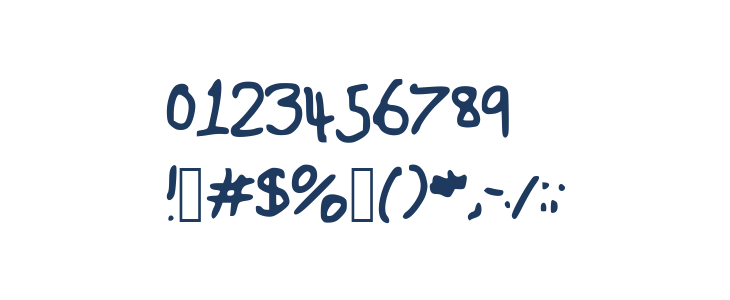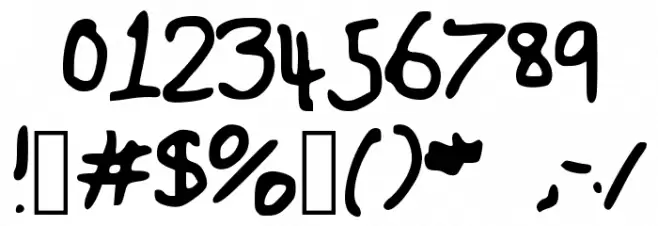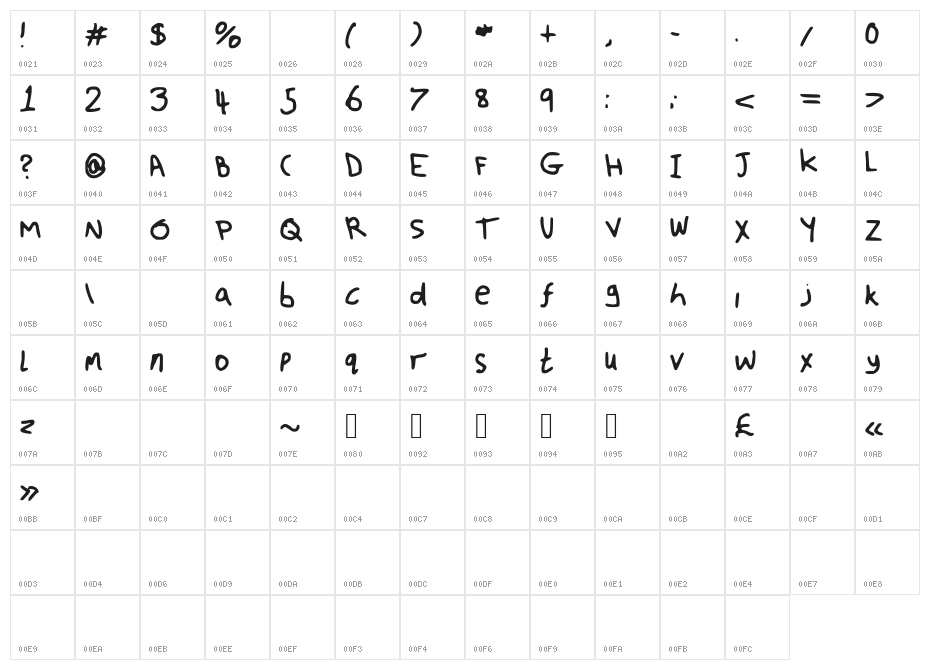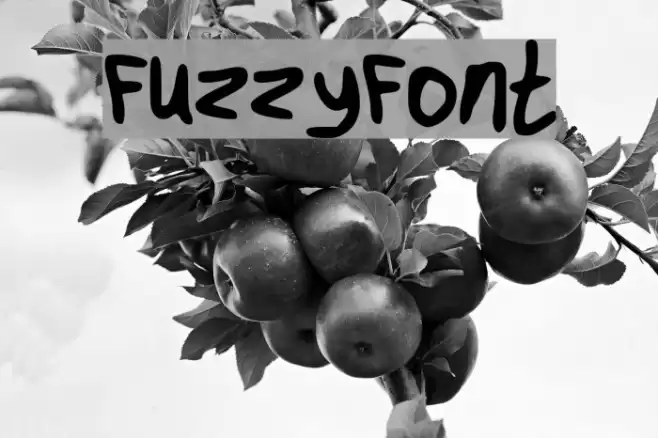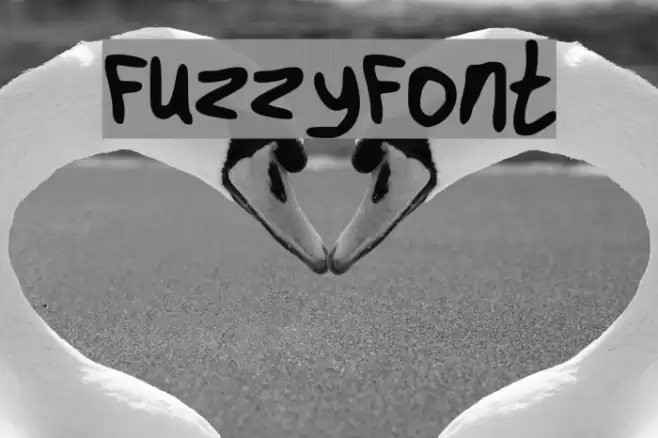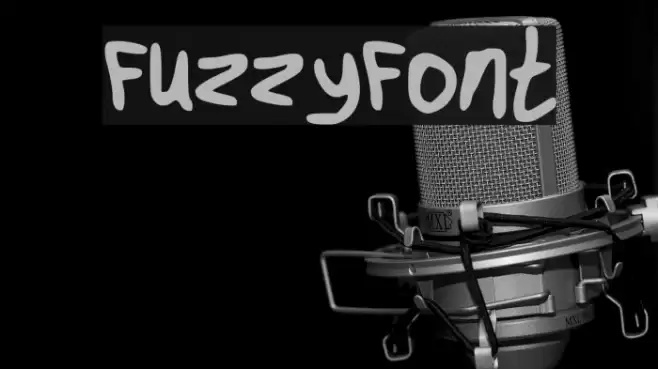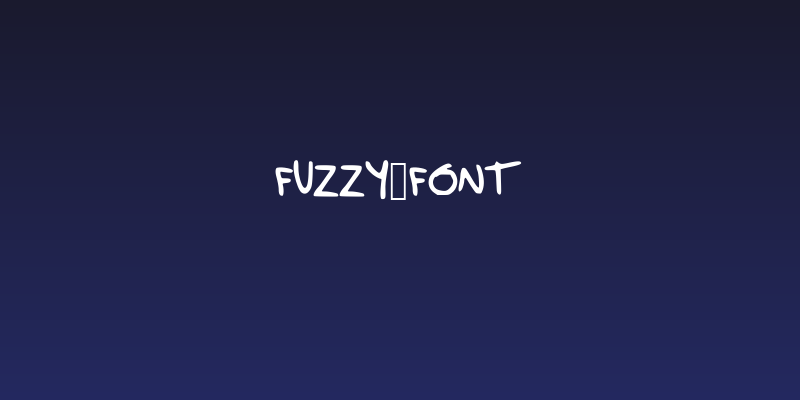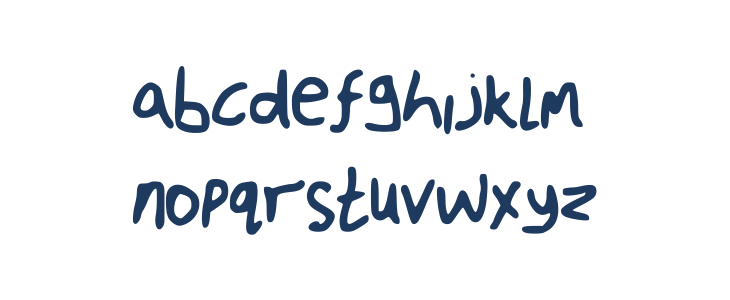
Fuzzy_Font Font
Fuzzy_Font Description
This playful and bold font features a handwritten style with a casual and informal appearance. The characters are rounded and slightly irregular, giving a sense of spontaneity and creativity. The uppercase and lowercase letters maintain a consistent style, with a noticeable slant and varying stroke thickness that adds to the font's dynamic feel. The numbers and special characters are equally expressive, maintaining the overall whimsical and approachable aesthetic. This font is ideal for projects that require a personal touch or a fun, engaging look.
| Proposed Projects | Great for children's books, greeting cards, playful branding, and casual invitations. |